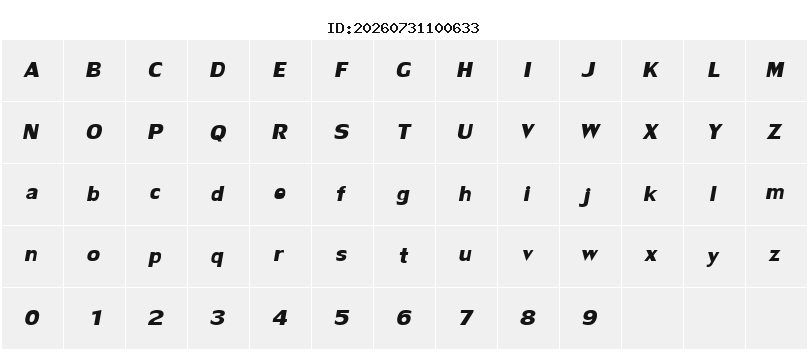
LilyUPC Preview
• Font Name: LilyUPC
• Font ID: FontMonger:LilyUPC Bold Italic
• Full Font Name: LilyUPC Bold Italic
• PostScript Name: LilyUPCBoldItalic
About LilyUPC.ttf
LilyUPC.ttf is a modern, elegant sans-serif font designed for ultimate readability and visual harmony. Perfect for branding, headlines, web design, and print materials.